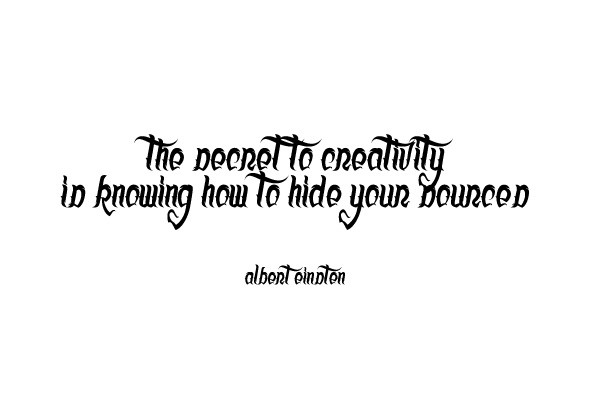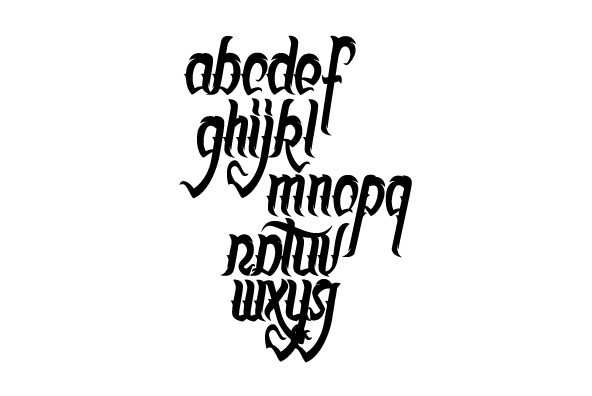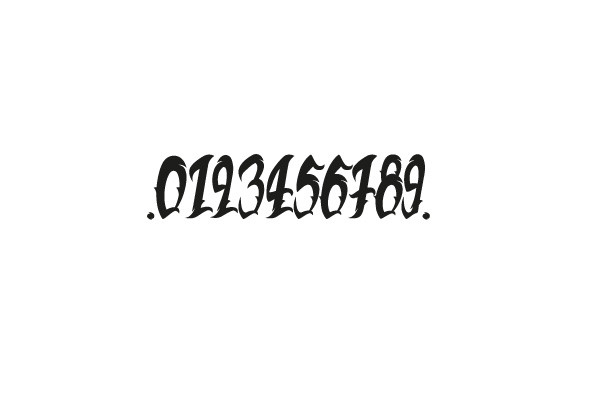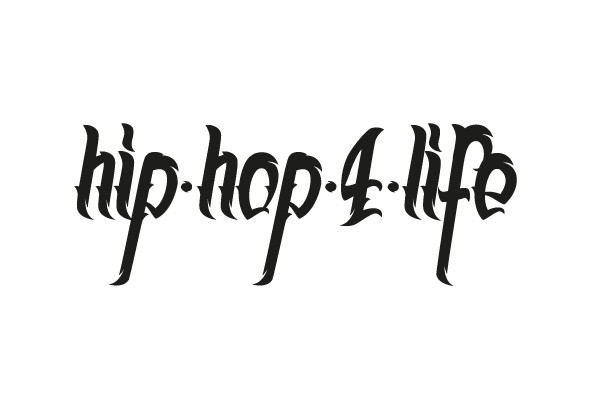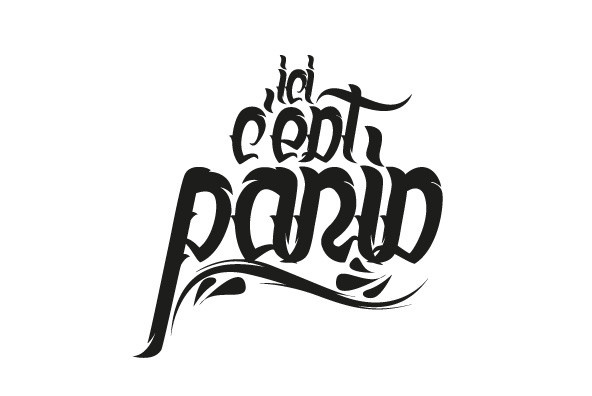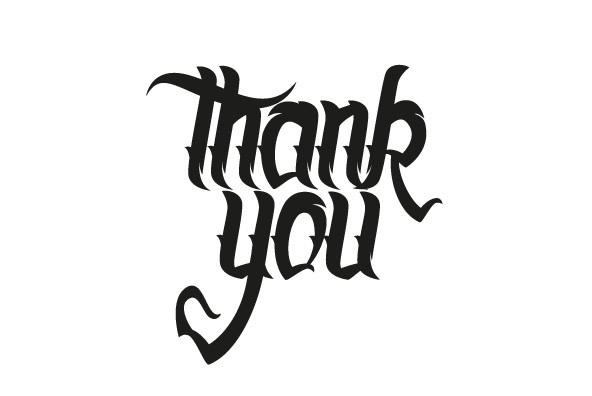
Juart is a lowercase font design, inspired by the designs of Juart Little (BeardMan). The result is a blackletter font design, with a slight hint of a tattoo vibe.